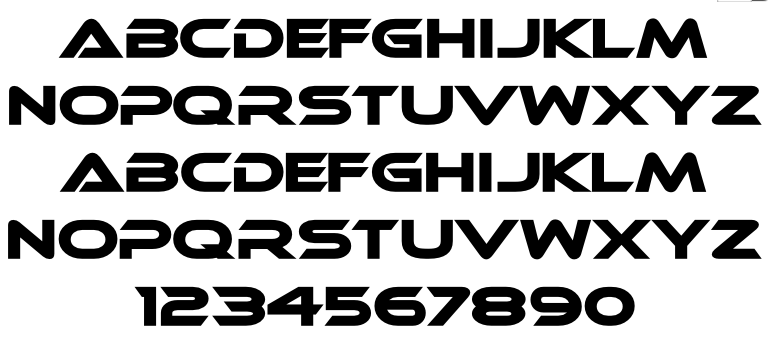
I am redesigning this logo for a company and need to know the font that is used. I asked, but they aren't sure yet and might have the answer later. I would like to finish this as soon as possible, so any help is greatly appreciated. Thanks!
*uses Dictionary* Multiply it? What do you mean? Anyway, I think the font name is Usuzi. It's modified so this is gonna take a while.
As for what it is, the 'P' in Pro is not the font and the rest looks a lot like Ethnocentric - although not exact.
That's the NASA font or a clone. Look around for the freeware Nasalization font -- it's almost identical, but the O and R have been modified. (but only in the company name, the smaller lettering looks unmodified)
It was indeed that font. They e-mailed me later on letting me know. Thanks for the help guys, the logo is finished. It may not be the best designed logo, but remember: all I did was rebuild it. 😉 And plus, they paid me for it. What more can I ask for? 😀